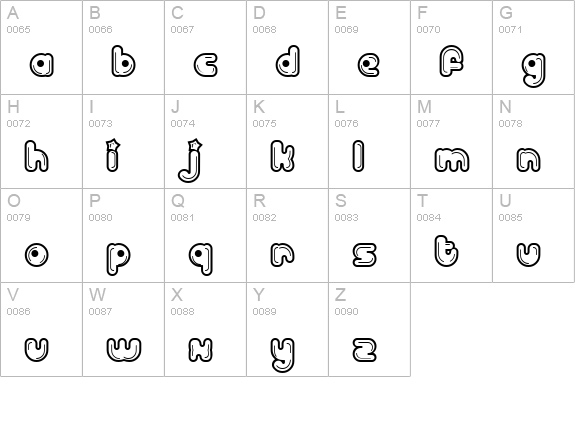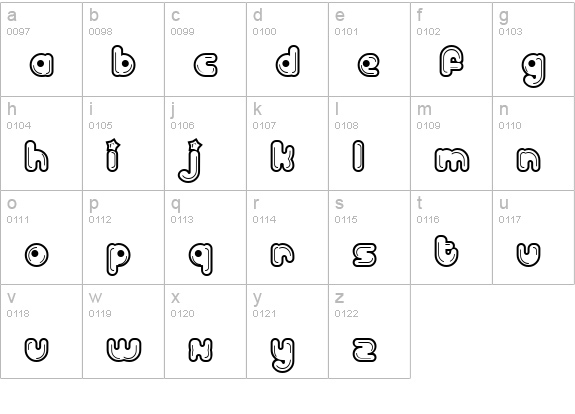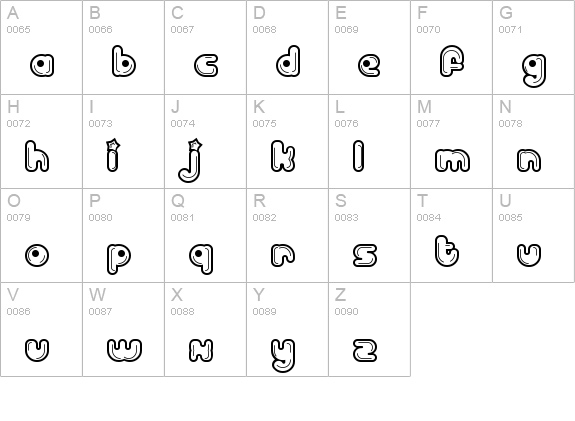
Billo Dream Font Details
Billo Dream font is a whimsical and playful typeface that is sure to bring a touch of magic to any design project. With its charming and rounded letters, this font is perfect for adding a sense of joy and wonder to invitations, posters, and more. The best part? Billo Dream is completely free! That's right, you can download and use this delightful font without having to spend a dime. Whether you're a professional designer looking to add some pizzazz to your work or a hobbyist wanting to add a touch of creativity to your personal projects, Billo Dream is the perfect choice. To get your hands on this fantastic font, simply head over to FontsMarket.com. There, you will find a vast collection of unique and high-quality fonts, including Billo Dream, all available for free download. So why wait? Give your designs a dreamy and whimsical touch with Billo Dream font today!